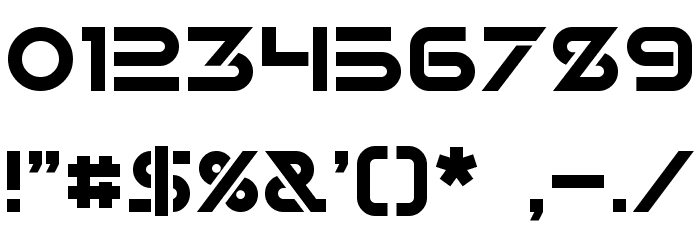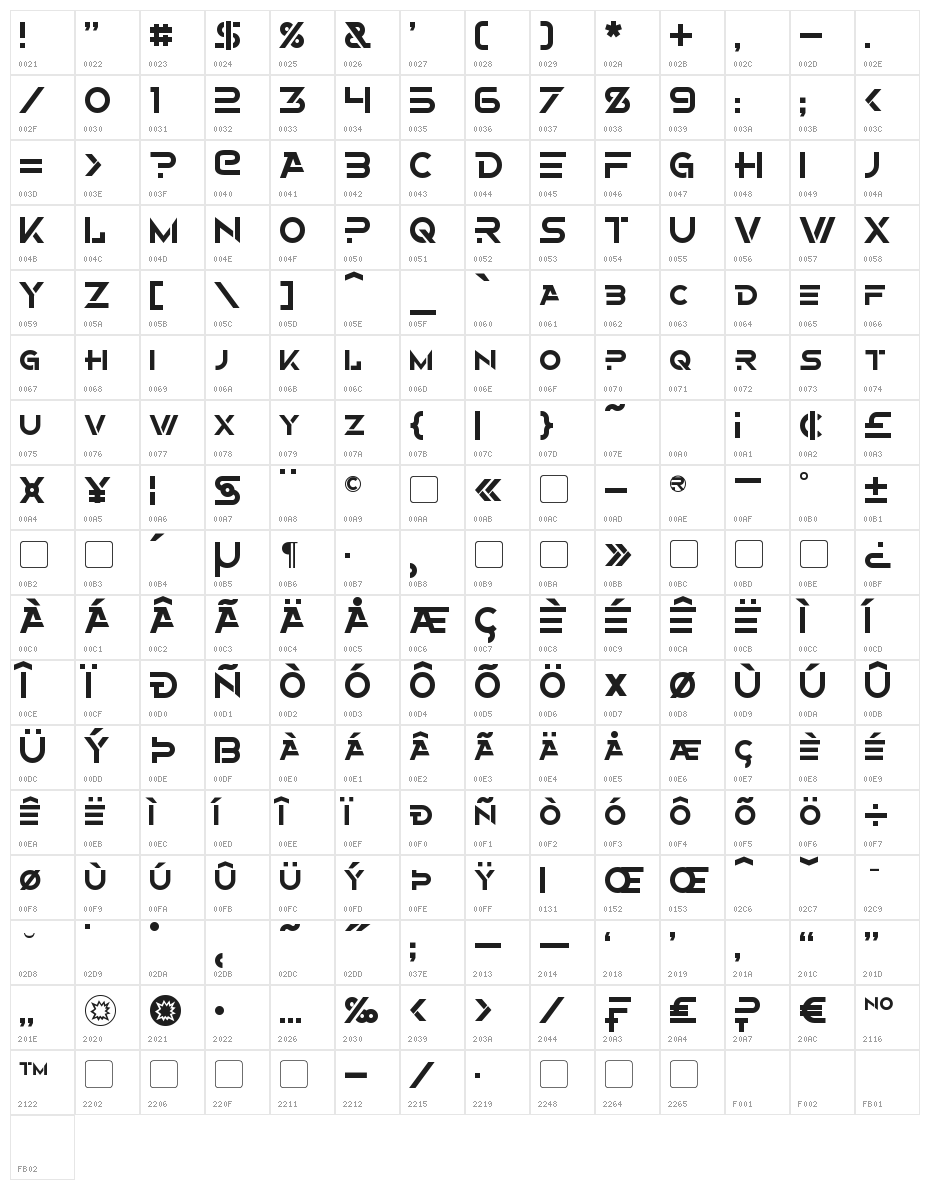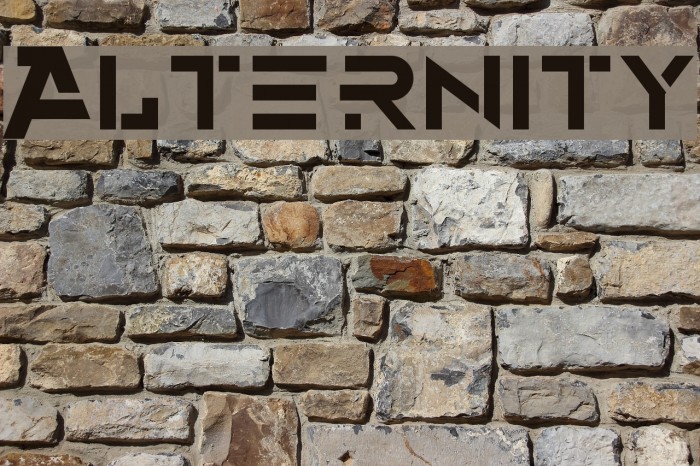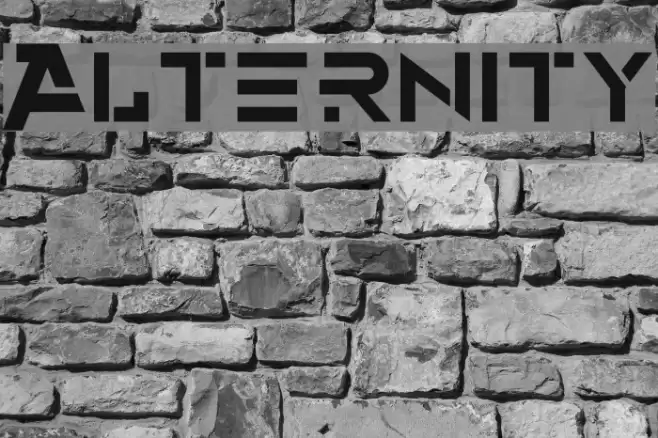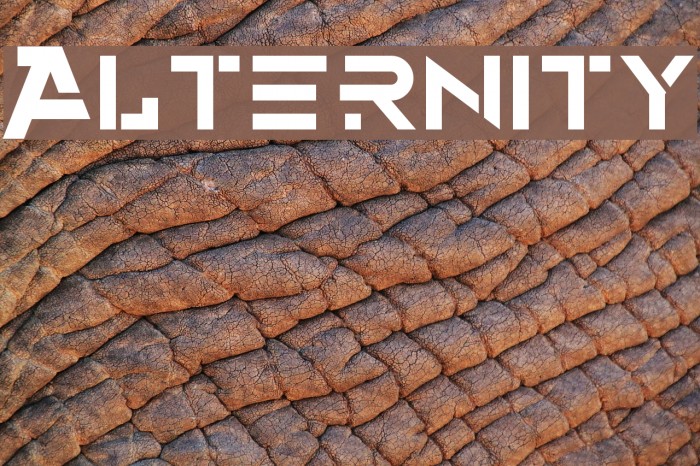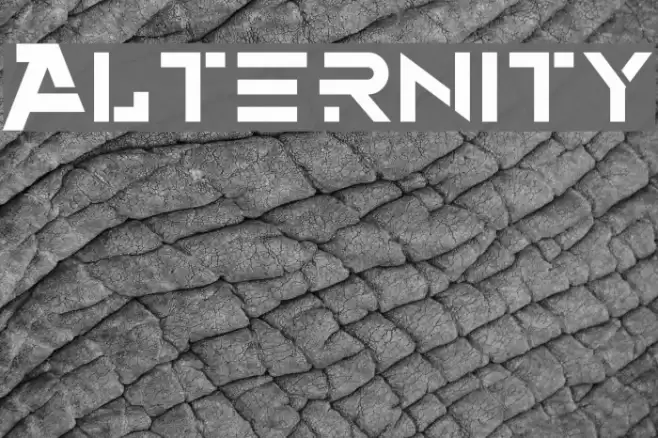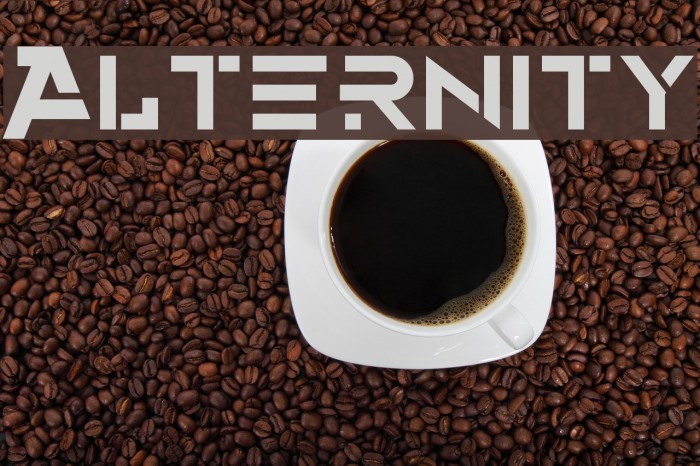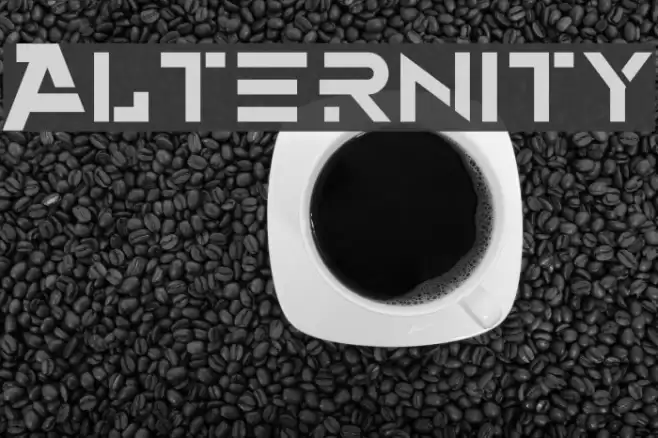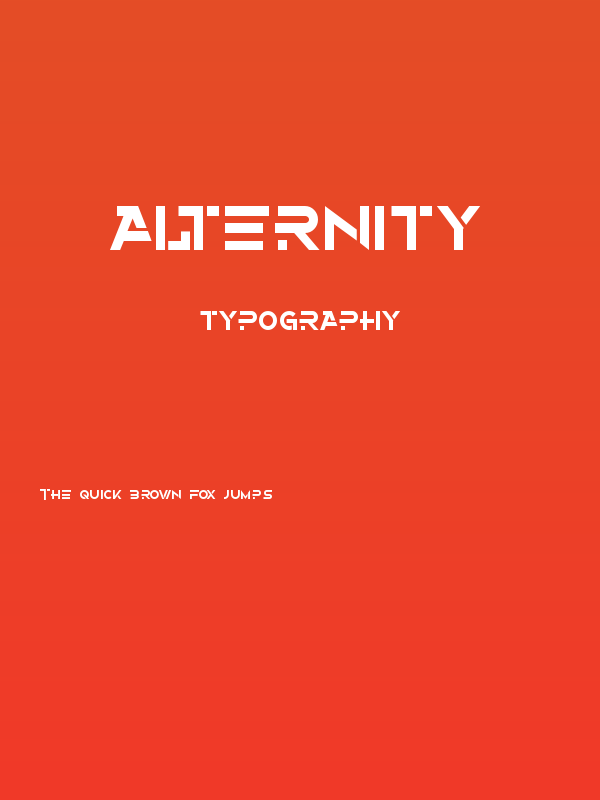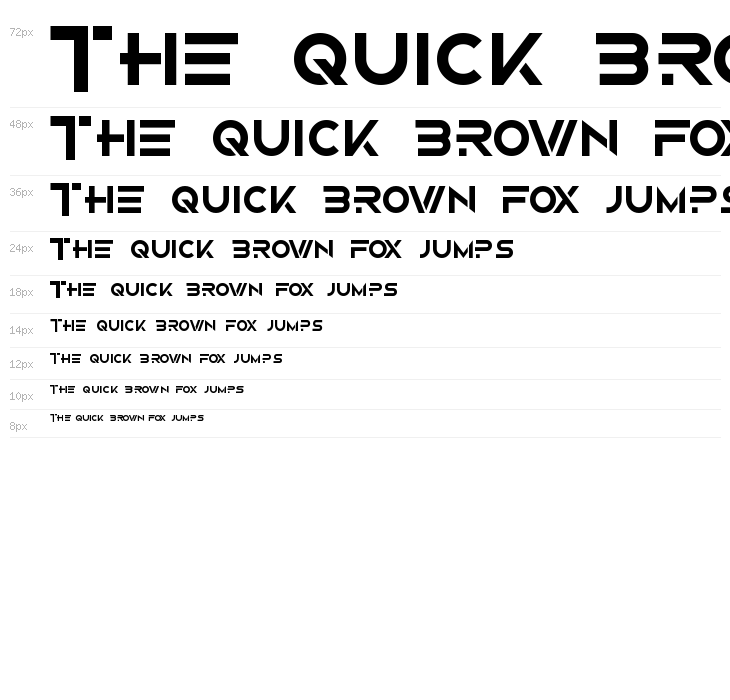
Alternity Font
Alternity Description
This font features a futuristic and geometric design, characterized by its bold and angular letterforms. The characters are constructed with sharp edges and clean lines, giving it a modern and tech-inspired appearance. The uppercase letters are particularly striking, with unique cuts and angles that create a sense of movement and dynamism. The numerals and special characters maintain this cohesive style, ensuring versatility across various applications. The font's distinct style makes it ideal for projects that require a contemporary and innovative look.
| Proposed Projects | Ideal for technology branding, sci-fi movie posters, video game titles, and modern advertising campaigns. |